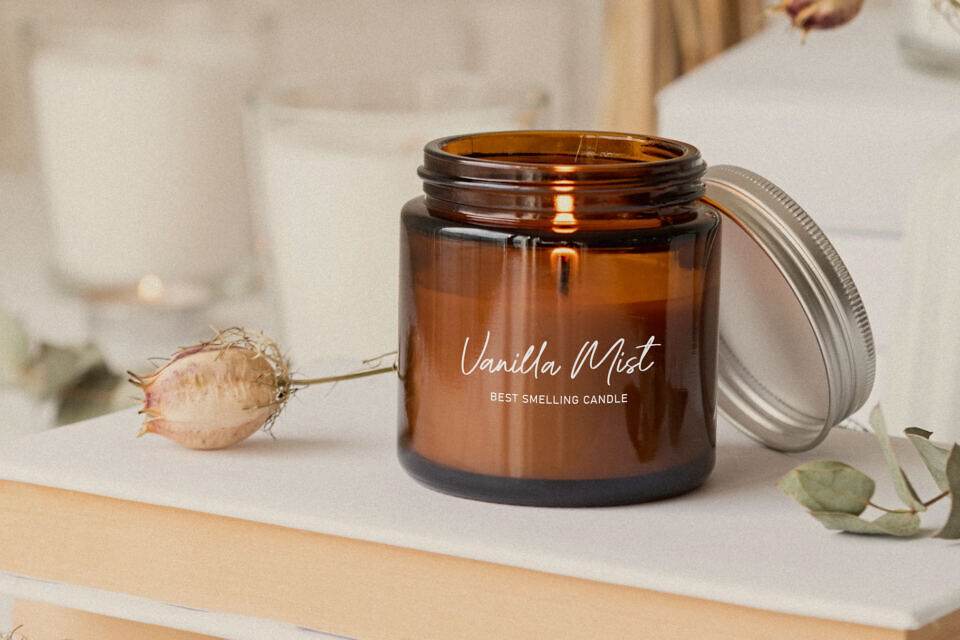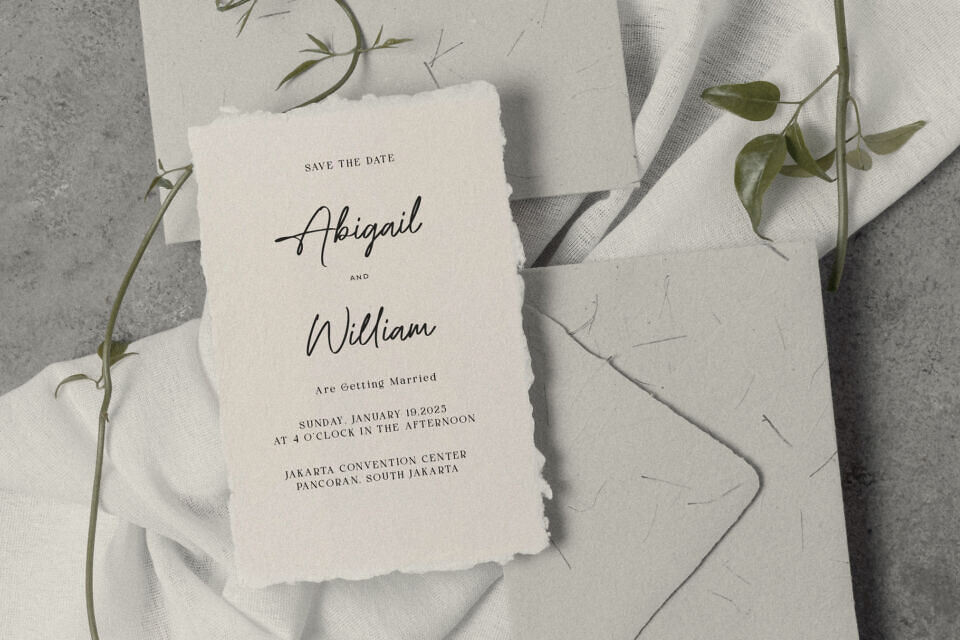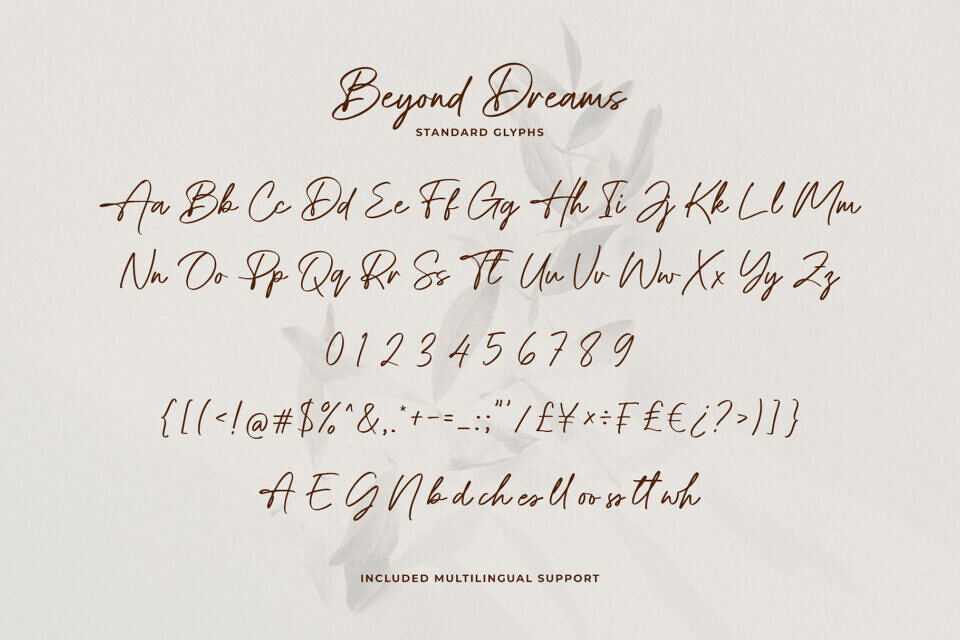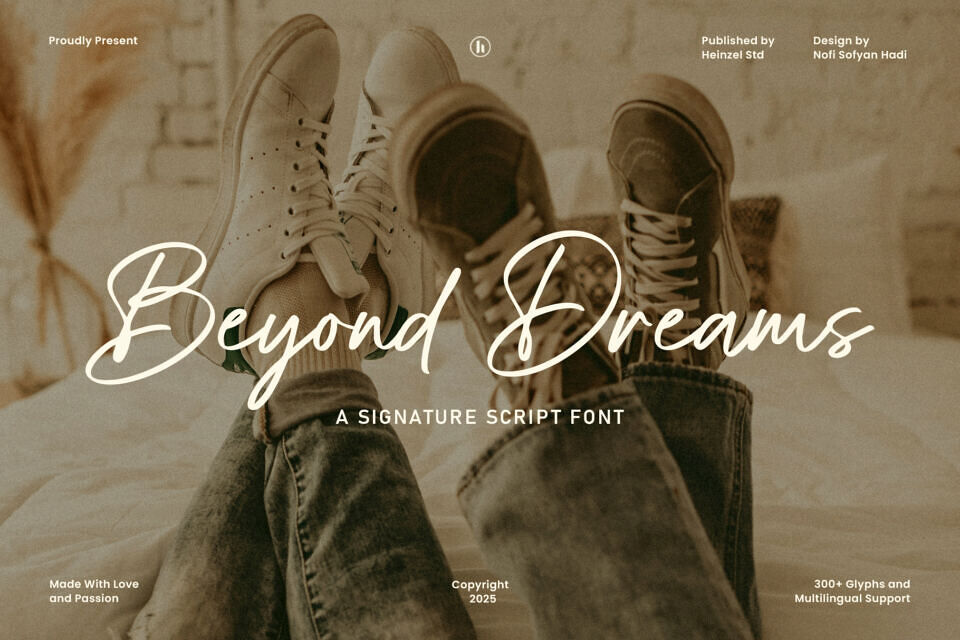
Beyond Dreams Font
Beyond Dreams Script Font is a modern signature-style handwritten typeface designed to bring elegance, warmth, and personality to your creative projects. Featuring smooth curves, natural strokes, and stylish ligatures, this font captures the authentic feel of handwritten lettering while maintaining a clean and professional look.
Perfect for branding, logos, wedding invitations, social media posts, packaging, fashion design, photography watermarks, and editorial layouts, Beyond Dreams delivers a timeless and sophisticated aesthetic. Its balanced letterforms and flowing rhythm make it highly readable while still feeling expressive and luxurious.